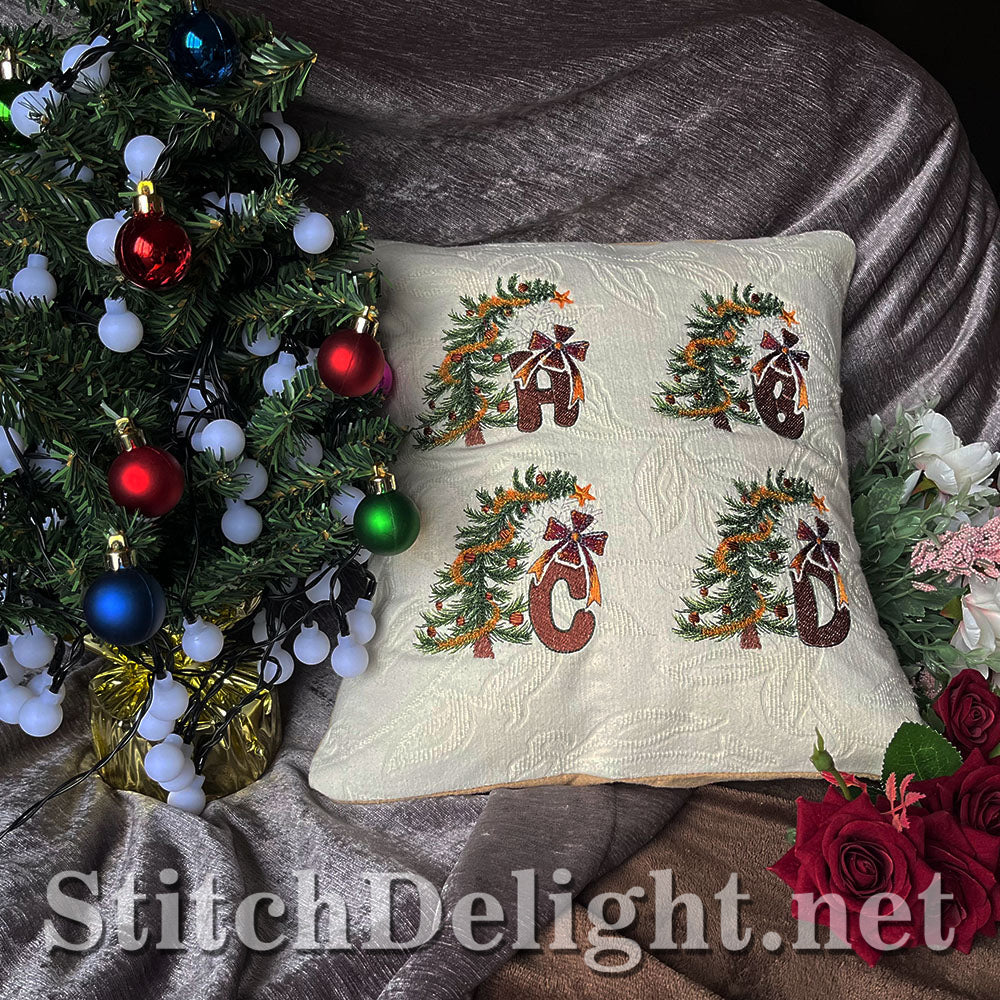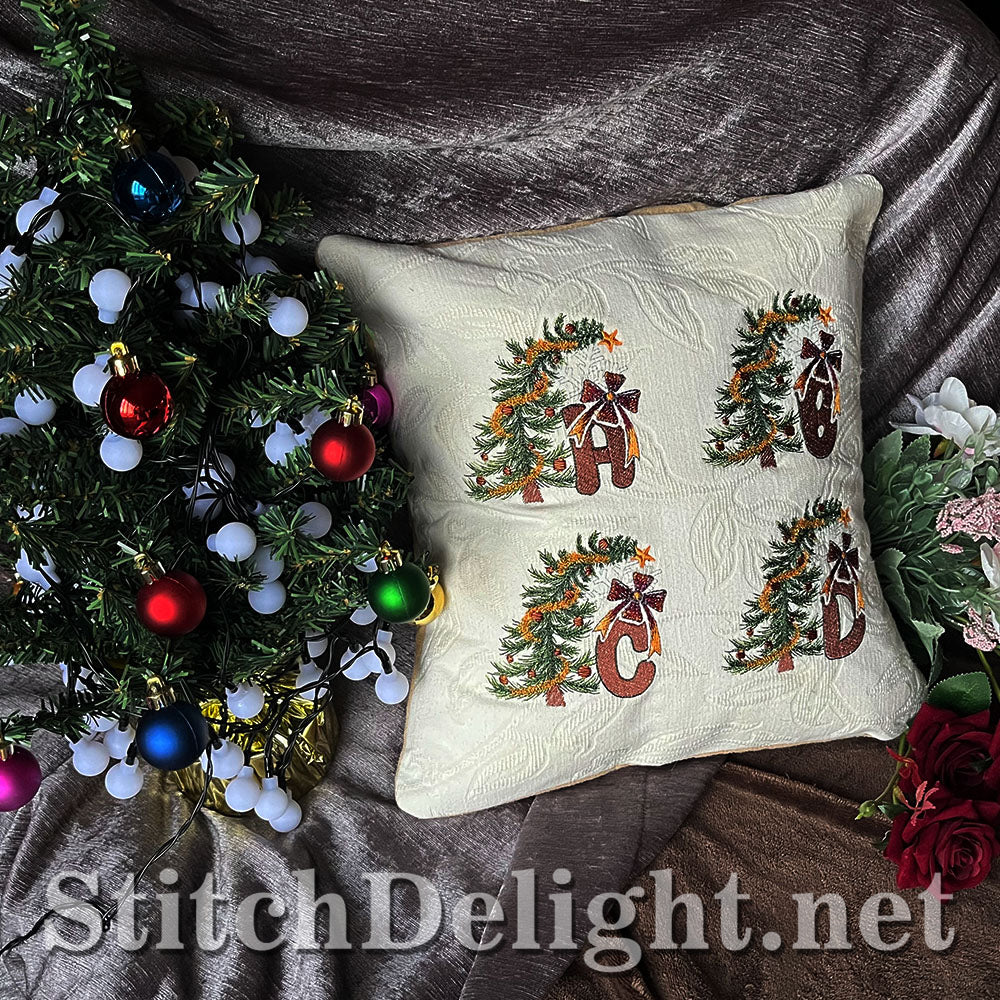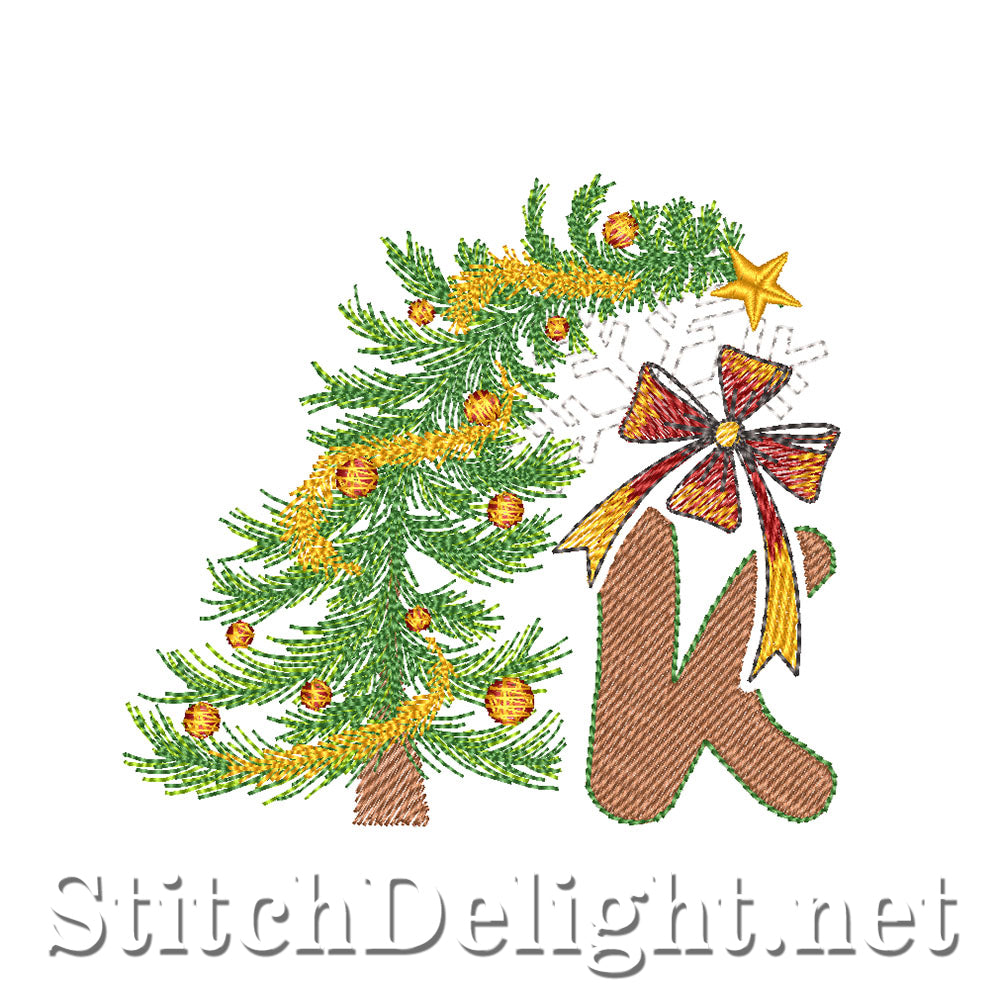
SDS3254 Christmas Font K
The Christmas Font Single Letter fits in a 4x4" hoop and is suitable for all fabric types using the correct stabilizer, make you’re your festivities glow with this whimsical decorated Christmas tree font! This font has an average height of 3.8"